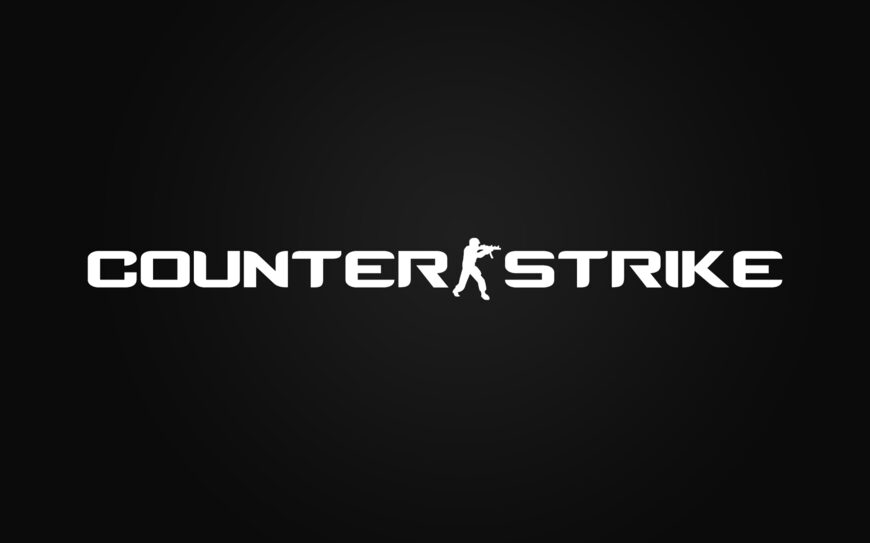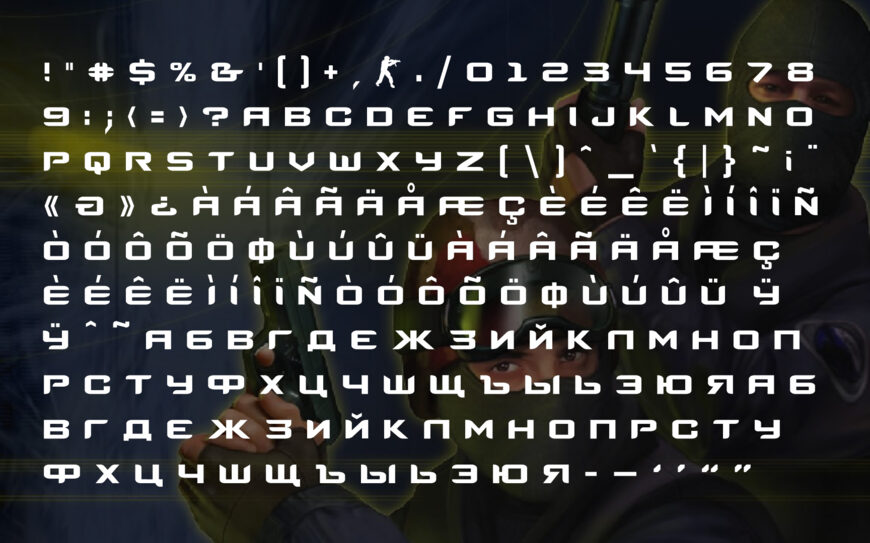
Counter-Strike Logo Font
Counter Strike Logo Font
Inspired by the classic Counter-Strike logo, this typeface delivers a sharp, futuristic military aesthetic with bold geometric forms and distinctive cut details. Its techno sci-fi character captures the tactical, competitive energy associated with the iconic game identity.
Designed to stand out in titles, logos, posters, and gaming graphics, the font blends digital precision with an aggressive, action-focused style while supporting both Latin and Cyrillic characters.